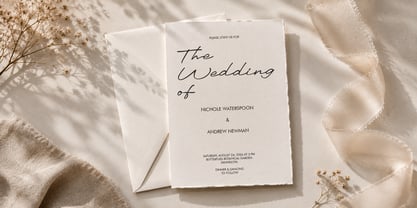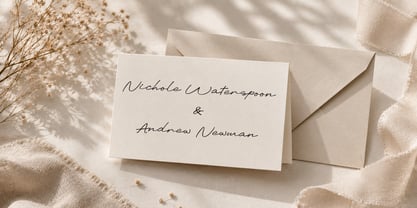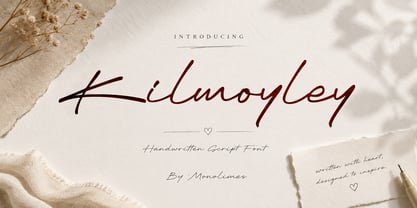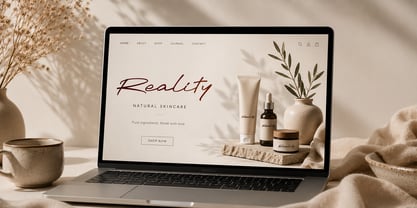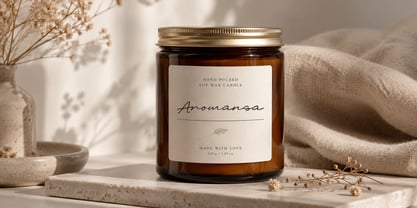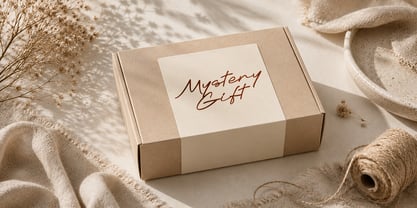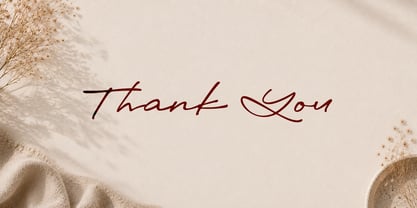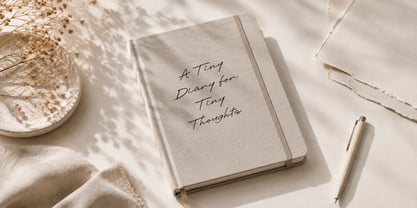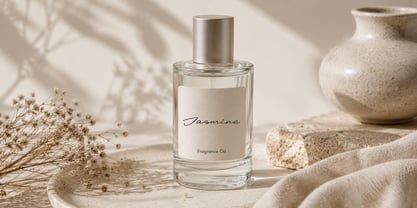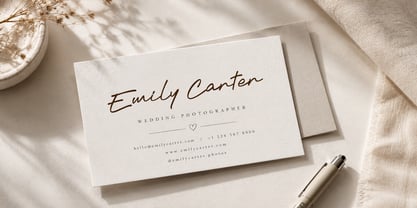
Kilmoyley
Introducing Kilmoyley, a modern handwritten script font that captures the beauty of real handwriting with smooth, flowing strokes and a naturally elegant style.
Designed for creatives who want authentic and expressive typography, Kilmoyley is perfect for luxury branding, wedding stationery, fashion labels, beauty products, photography logos, and stylish social media content. Its organic letterforms and graceful connections create a personal, premium, and memorable look.
Whether you're designing a signature logo, product packaging, invitation suite, or inspirational quote, Kilmoyley adds warmth and sophistication to every project.